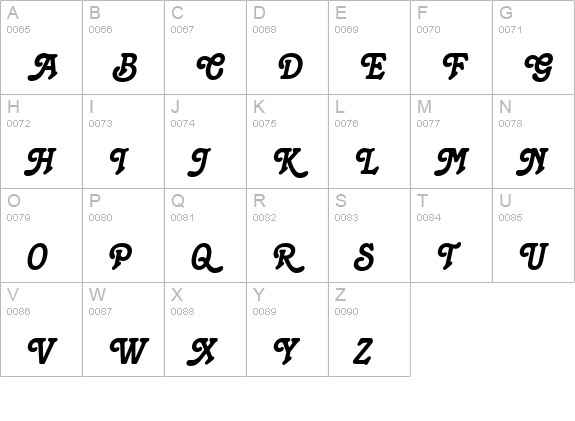
Terra Italic is a distinctive, italic variant in the Terra typeface family \xE2\x80\x94 well suited to design and typography projects.
Terra Italic font effortlessly combines elegance and versatility, making it the perfect choice for a wide range of design projects. With its graceful curves and refined letterforms, this font exudes a timeless charm that is sure to captivate any audience. The beauty of Terra Italic font lies not only in its aesthetic appeal but also in its functionality. Its clean and legible design ensures optimal readability across various mediums, whether it be for printed materials or digital platforms. What sets Terra Italic font apart is its ability to effortlessly adapt to different design styles and moods. Whether you are looking to create a sophisticated logo, an eye-catching headline, or a stylish invitation, this font delivers with its inherent versatility. Furthermore, the best part is that Terra Italic font is freely available to download at FontsMarket.com. This means that you can easily access and use this exceptional font for your personal and commercial projects without any cost. Its availability for free ensures that designers and enthusiasts alike can enjoy the beauty and functionality of Terra Italic font without any limitations. So, if you are searching for a font that seamlessly combines elegance, versatility, and affordability, look no further than Terra Italic font. Download it now from FontsMarket.com and elevate your designs to new heights.